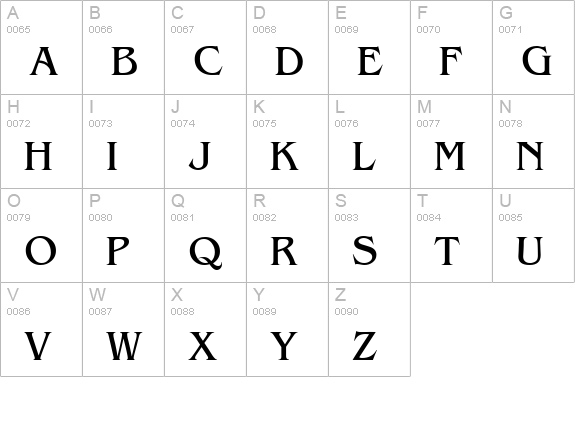
B693-Roman-Regular is the standard, neutral variant in the B693 typeface family \xE2\x80\x94 well suited to general body text, paragraphs, and standard typographic work.
B693-Roman-Regular is a classic and elegant font that exudes a timeless charm. With its clean lines and balanced proportions, this typeface is versatile and suitable for a wide range of design projects. The B693-Roman-Regular font is perfect for creating professional documents, invitations, logos, and more. What makes this font even more appealing is that it is available for free download at FontsMarket.com. You can easily access and use this font in your projects without any cost. Its readability and sophistication make it a popular choice among designers and typographers alike. Whether you are working on a print design or a digital project, B693-Roman-Regular is sure to add a touch of sophistication and style. Download this font for free today and elevate your designs with its classic appeal.